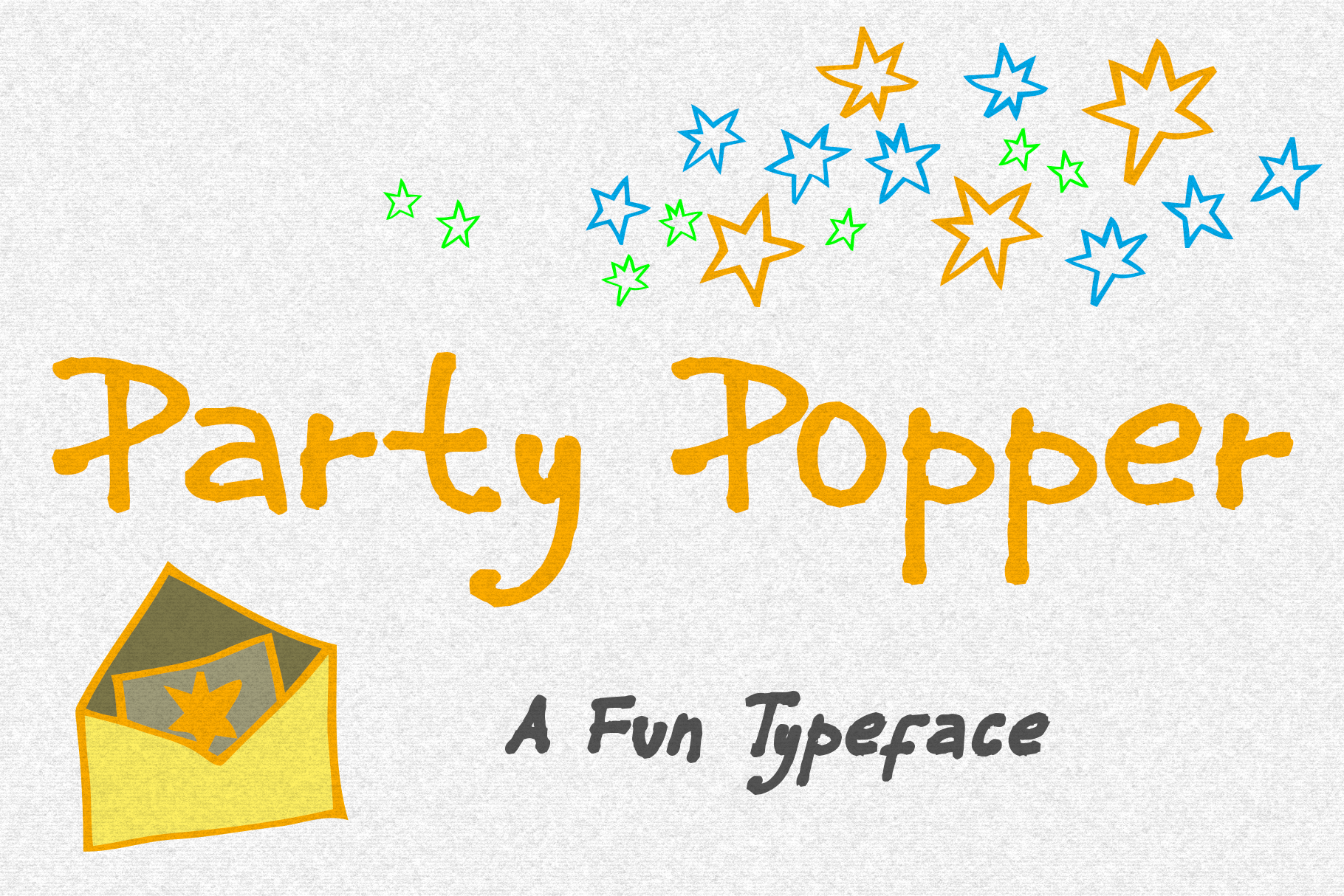
Party Popper - A Fun Typeface
Party Popper is a fun font!
Use it for fun invitations! Good fo fun party decorations!
It is fun, fun, fun!
Also good for serious uses.
- Regular and Italic
- Regular, light and bold
- Fun symbols